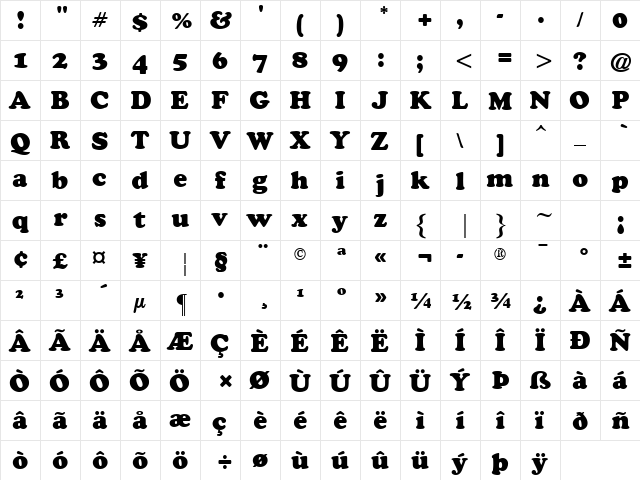
Coopa Blacka Regular
Design Context for Coopa Blacka Typeface
Coopa Blacka offers clean, dependable letterforms without strong stylistic allegiance, making it a practical choice for designers who need flexibility.
Pro Tip: Use Coopa Blacka in both headline and body roles to test its range before committing to a single application.